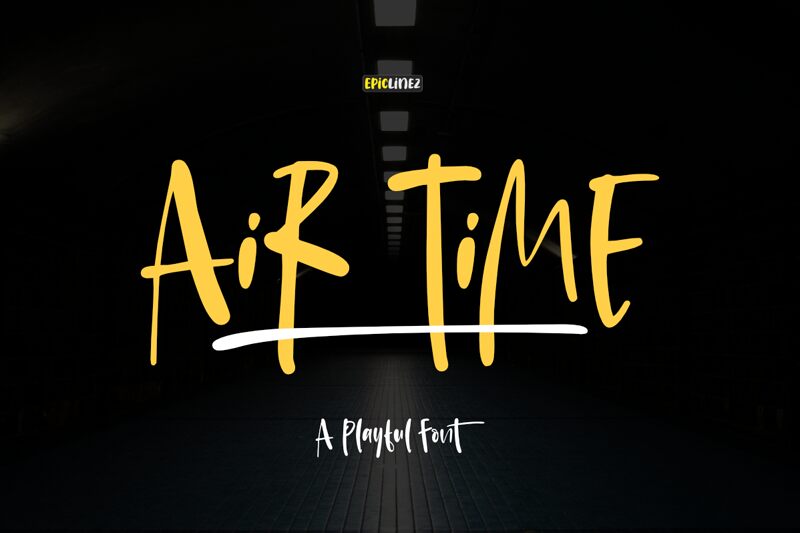
Air Time Demo Regular
Air Time font by Epiclinez is a free regular brush font. It stands out with a breezy, hand-painted rhythm-tall, confident ascenders and open counters give each word room to breathe. Strokes feel inky and slightly dry at the edges, with a casual bounce that reads friendly without losing clarity.
Using Air Time, headlines pop on social graphics, product packaging, event posters, cafe menus, travel blogs, and greeting cards. The relaxed spacing keeps short phrases punchy and legible, while the lively forms add warmth and momentum. Pair this free font with a clean, light-weight sans to anchor the texture, and scale it generously so the brush details sing.